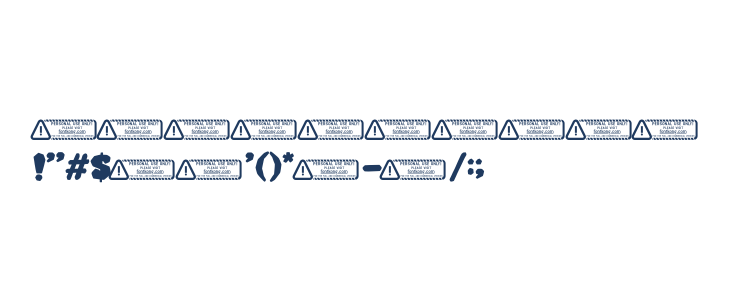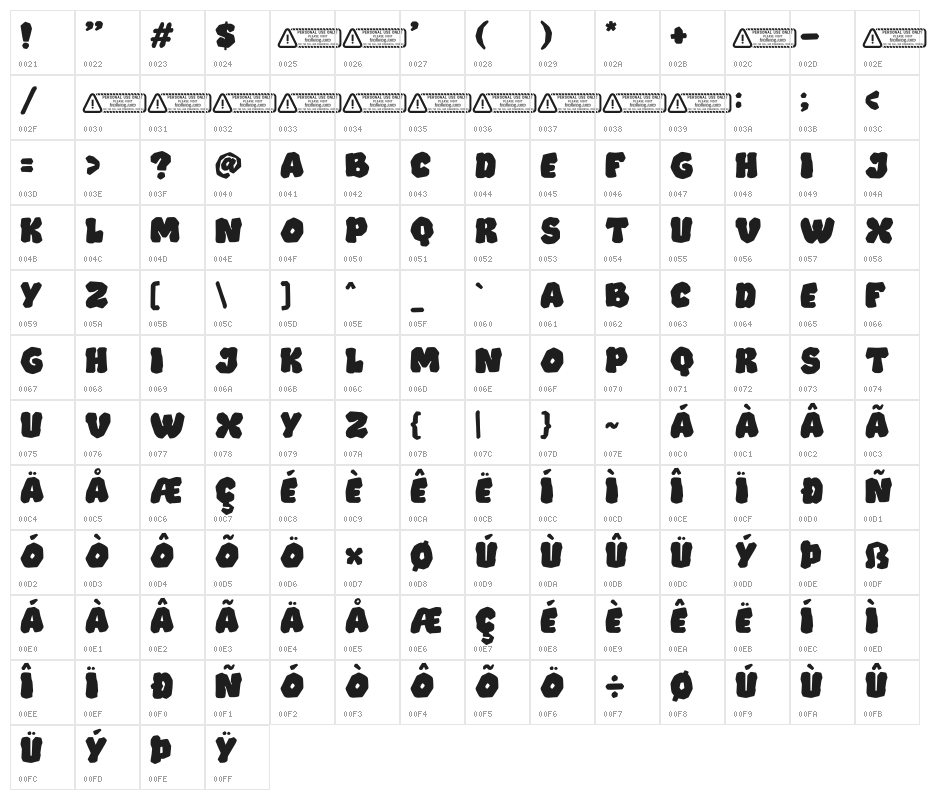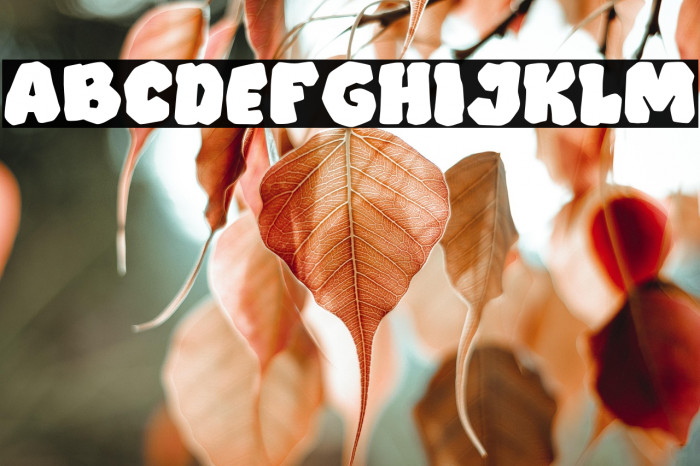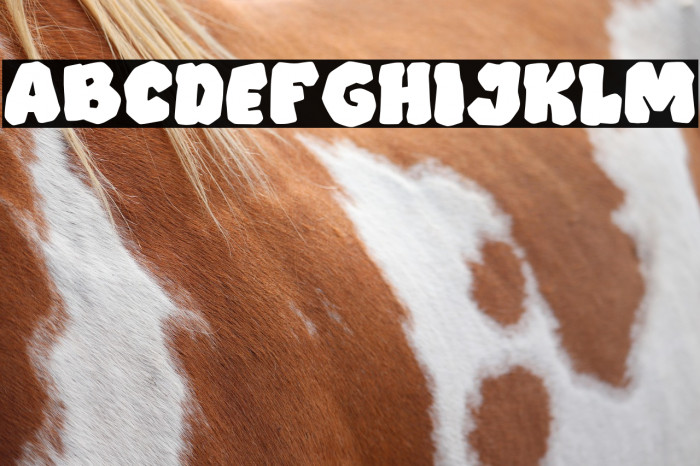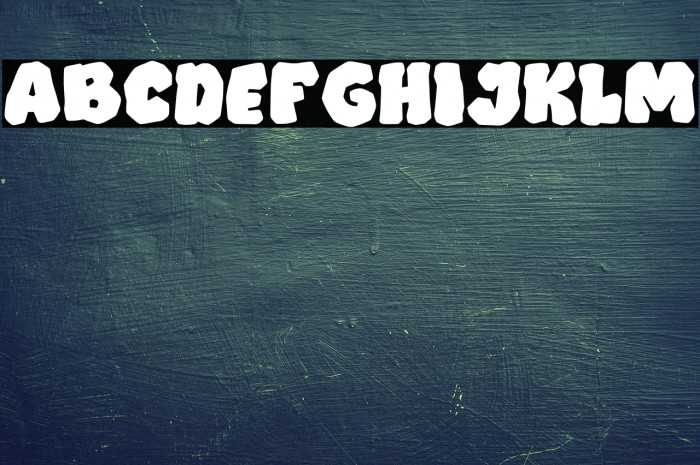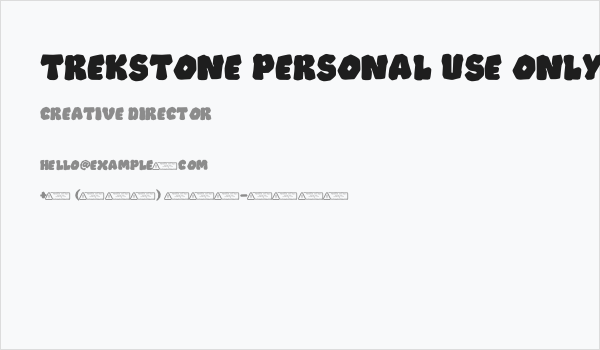
Trekstone PERSONAL USE ONLY! Font
Trekstone PERSONAL USE ONLY! Description
This font features a bold and chunky design with a playful and informal style. The characters are heavily weighted, giving them a strong presence on the page. The edges are rounded, contributing to a friendly and approachable appearance. The font maintains a consistent thickness throughout, with minimal contrast between strokes. Its unique and eye-catching design makes it suitable for creative and fun projects. The spacing between characters is tight, which enhances its compact and cohesive look. This font is ideal for projects that require a bold statement or a touch of whimsy.
| Proposed Projects | Ideal for posters, children's books, comic strips, and playful branding. |